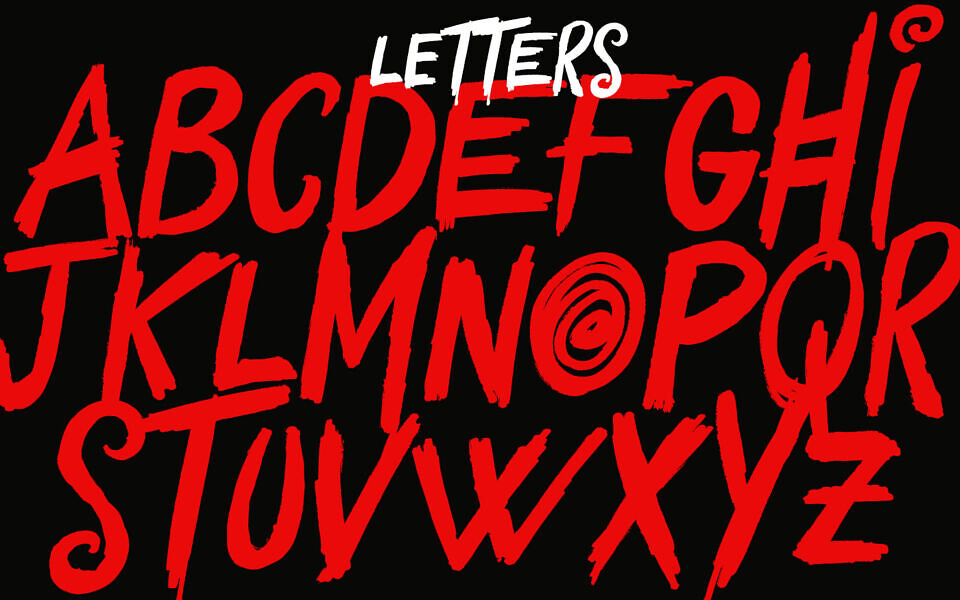
Mar 8, 2025DisplayYokai Font Yokai is a free rough brush font with alternate letters that can be toggled via Caps Lock. It’s best suited for larger titles.Yokai is free for both personal and commercial use. Font DetailsDesigned by: Tugcu Design CoWebsiteLicense: Free for commercial use Download Yokai FontFile size: 482.63 KBCreated: March 8, 2025Updated: March 8, 2025 Download Explore similar fonts Flush Brush Font Lokistar Font Nyakare Font CS Ranger Stamp Font Carved Lines Font Hueso Bone Font Family # Bold# Brush# Creative# Decorative# Display# Graffiti# Hand-drawn# Horror# Playful# Rough# Stylish# Unique# Vibrant